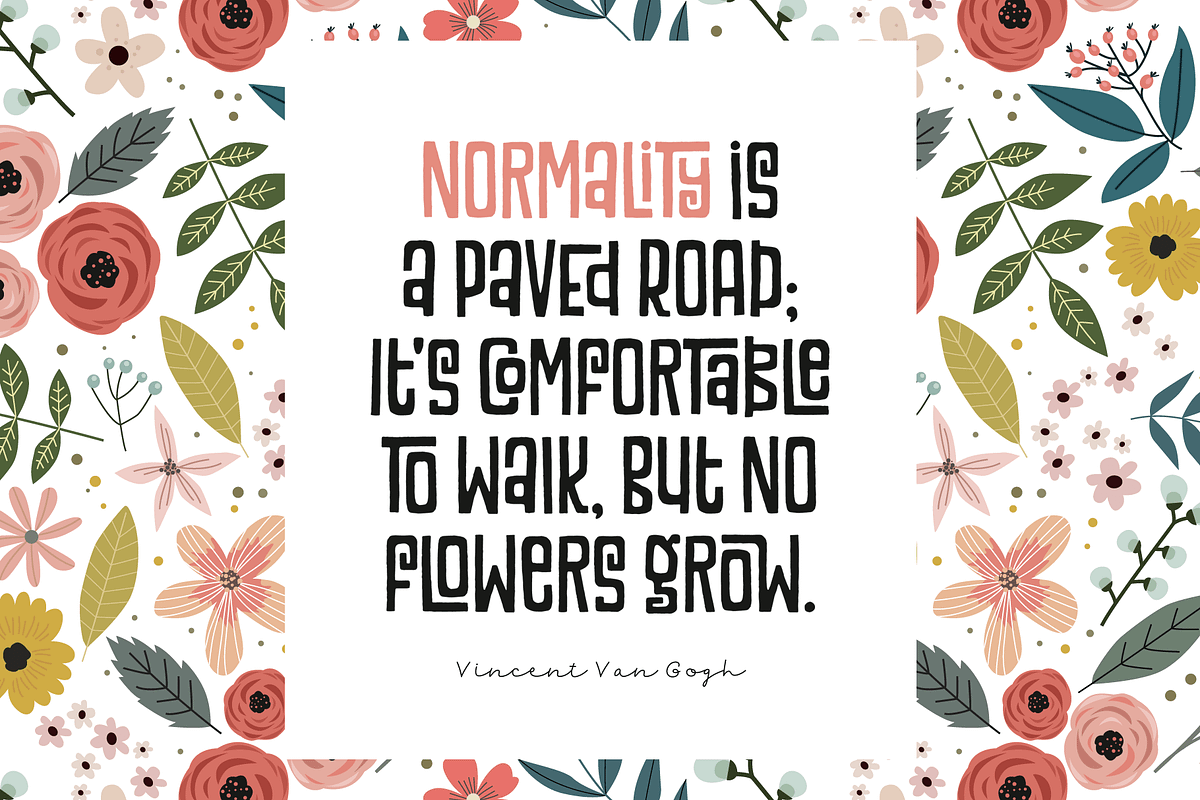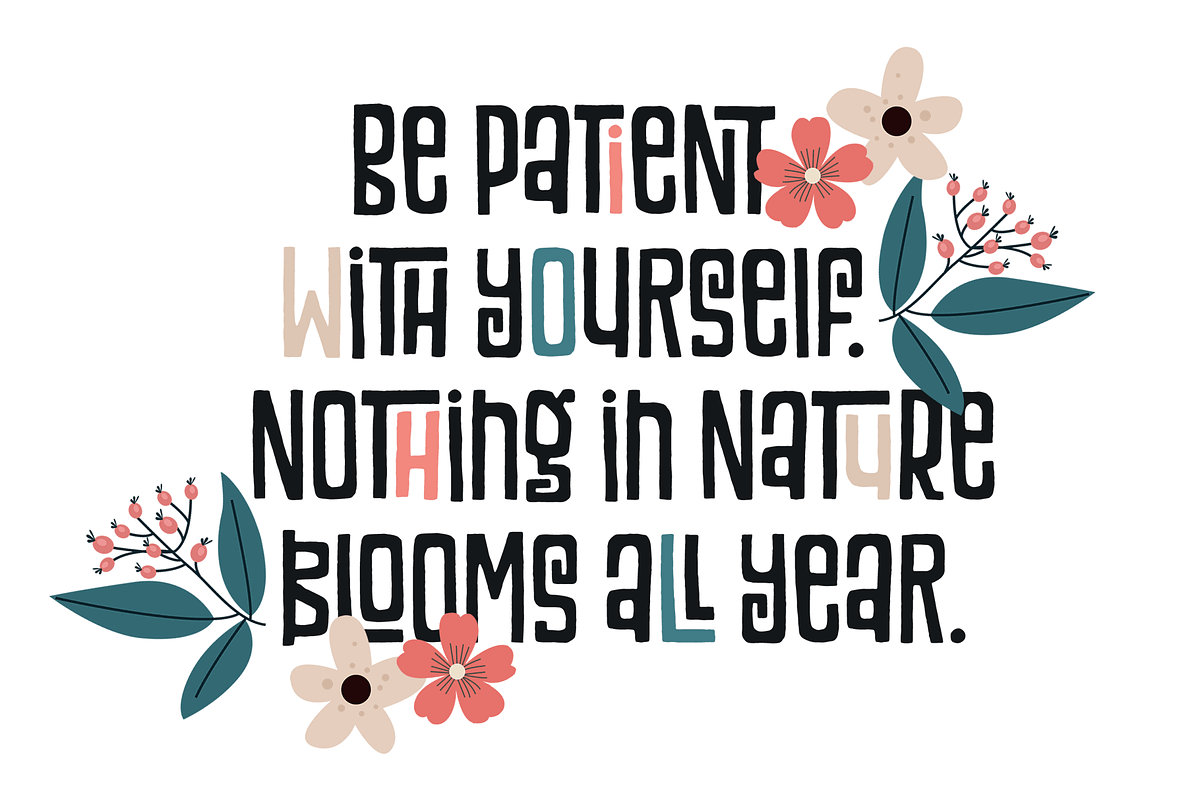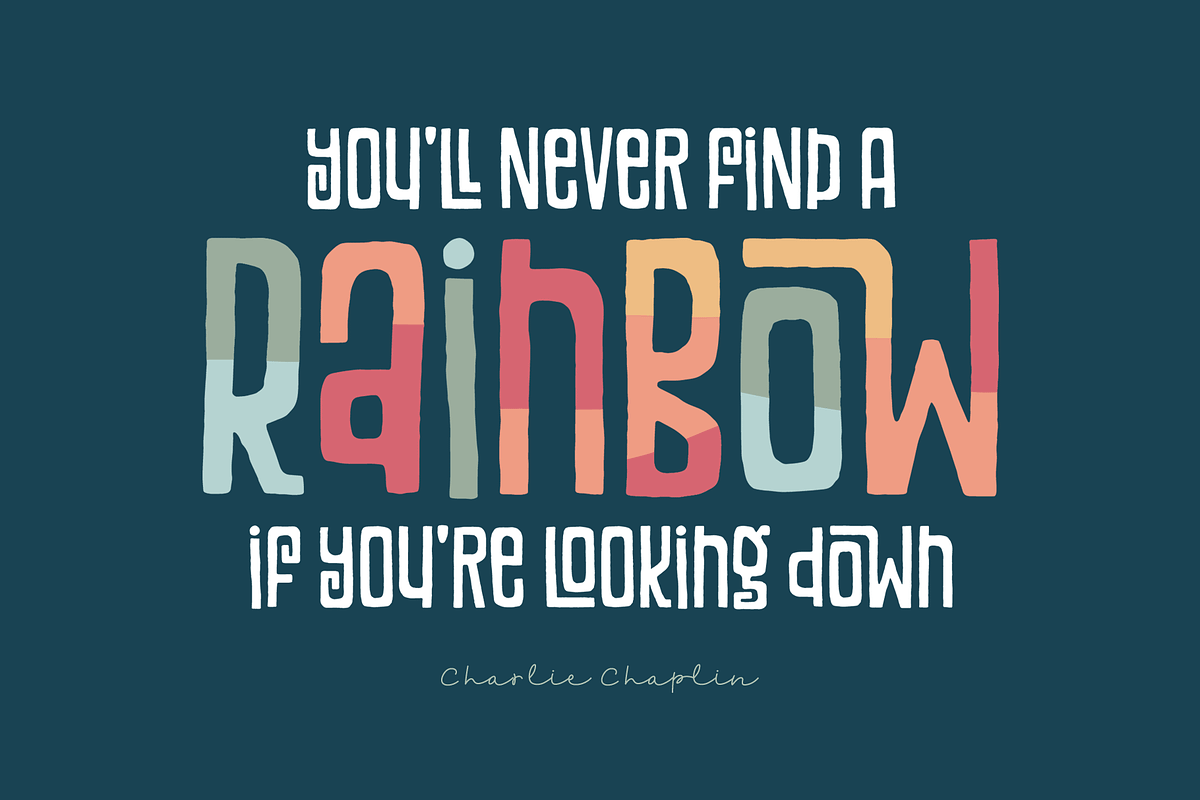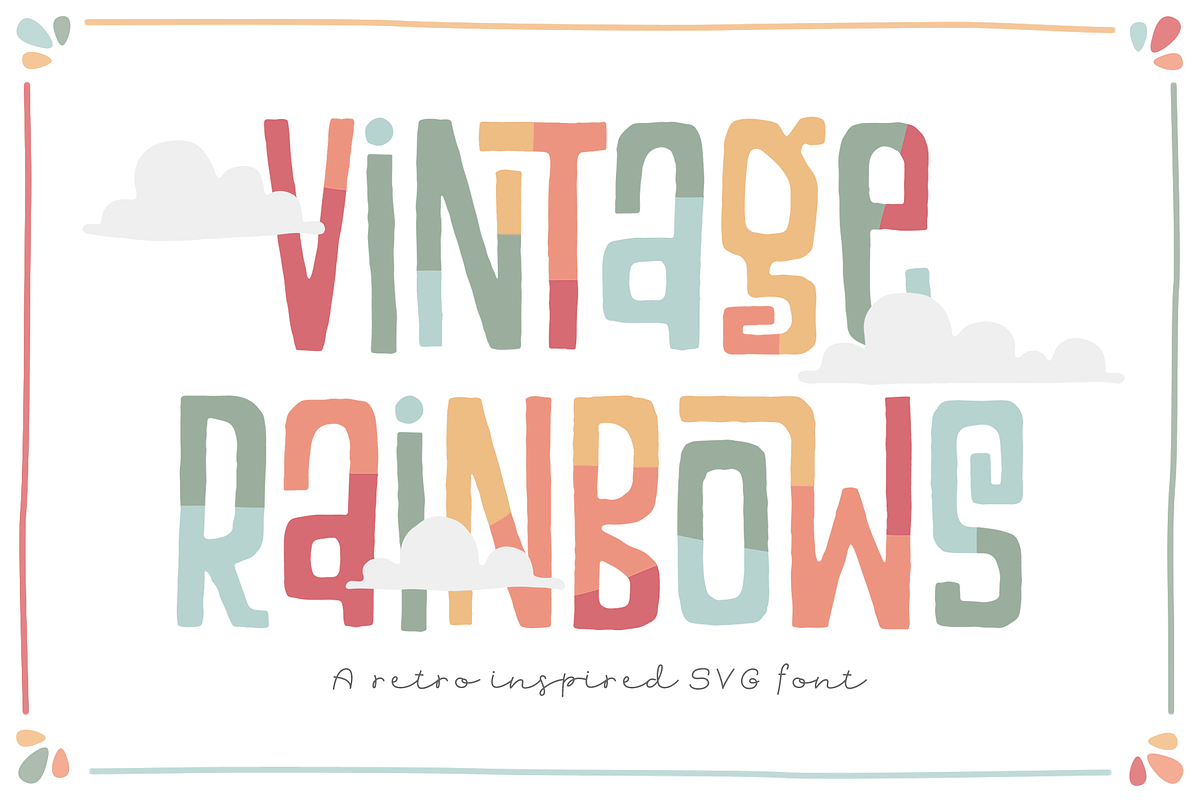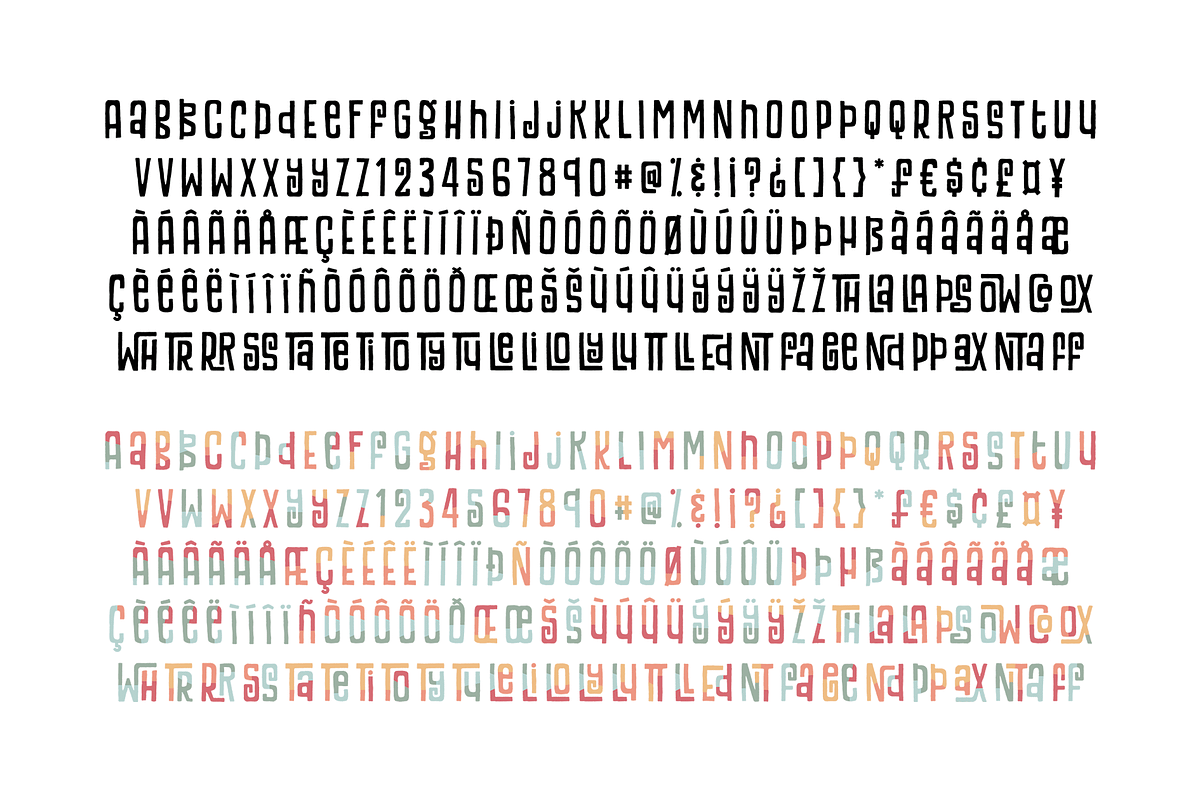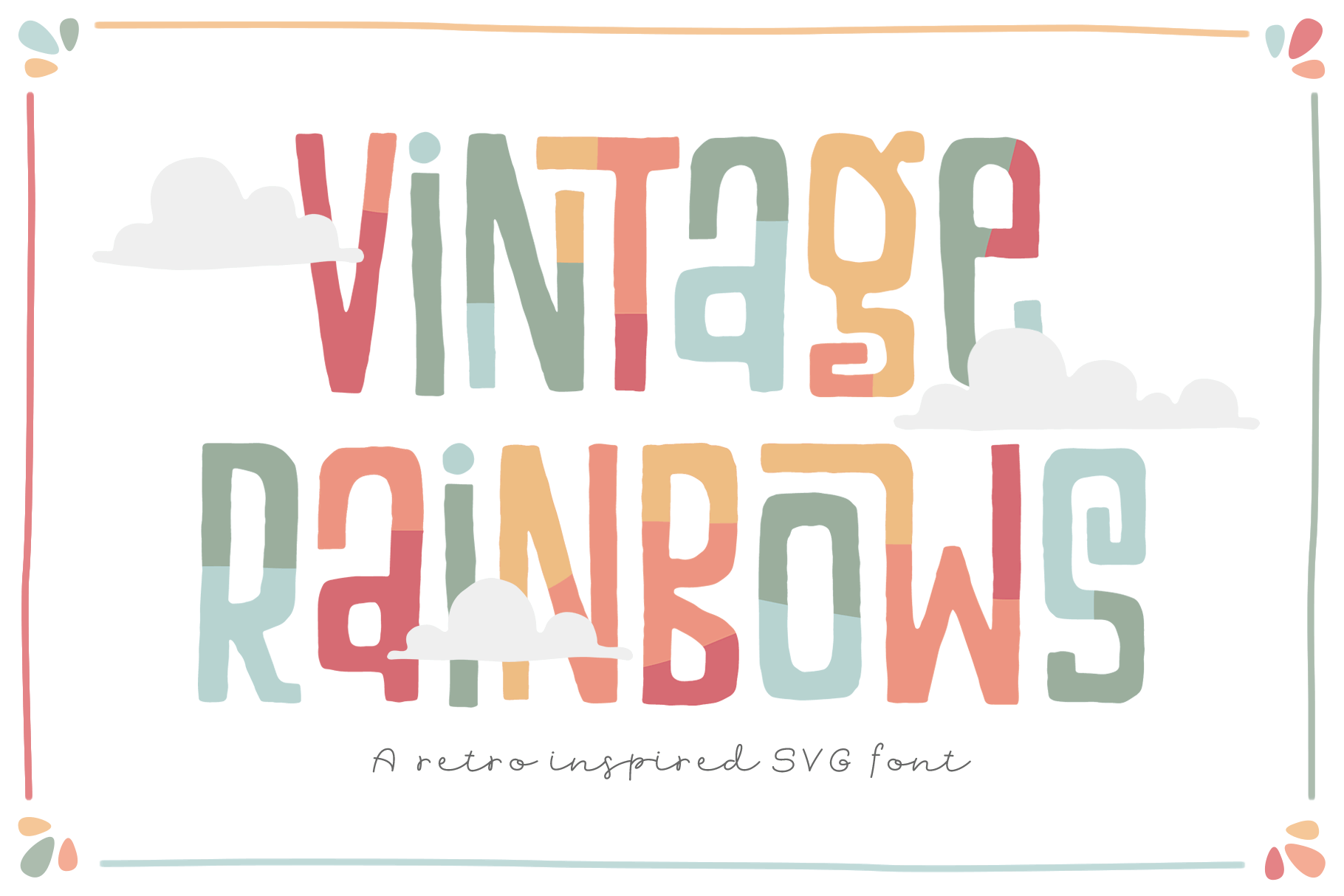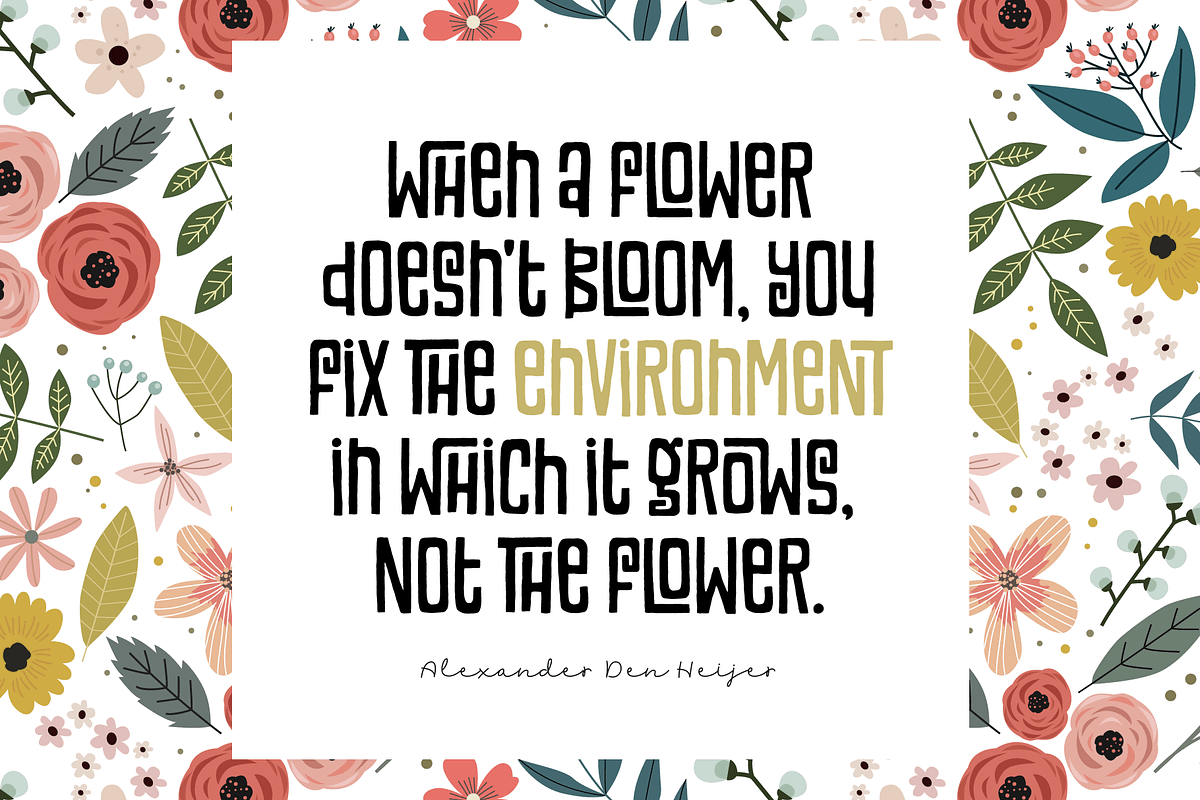
Vintage Rainbows Font
Vintage Rainbows is a hand-drawn, rough-edged font with a color blocked SVG version and a bunch of fun ligatures. OpenType-SVG fonts can be used in programs like Photoshop CC 2017+, Illustrator CC 2018+, or InDesign CC 2019+. Ligatures will appear automatically when using programs that support OpenType and have the feature turned on.